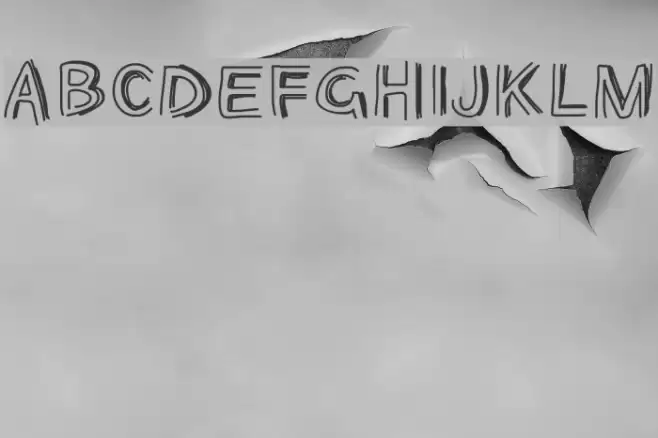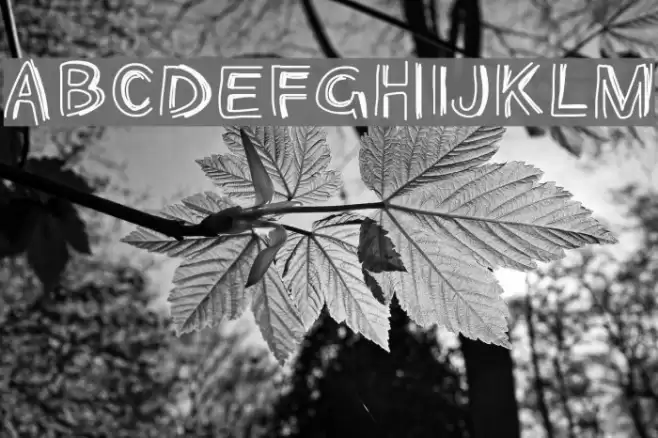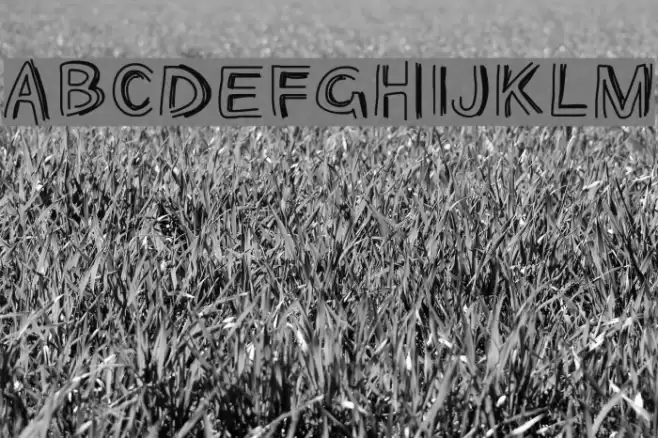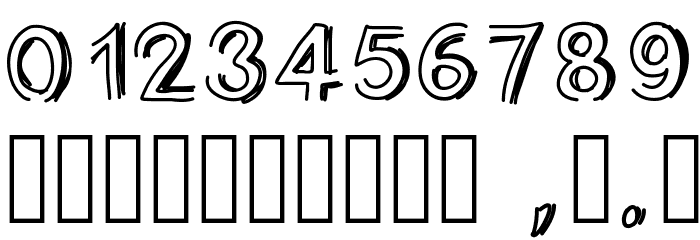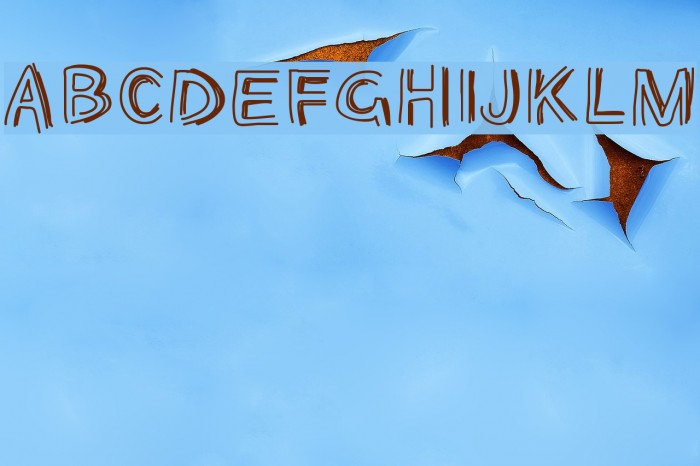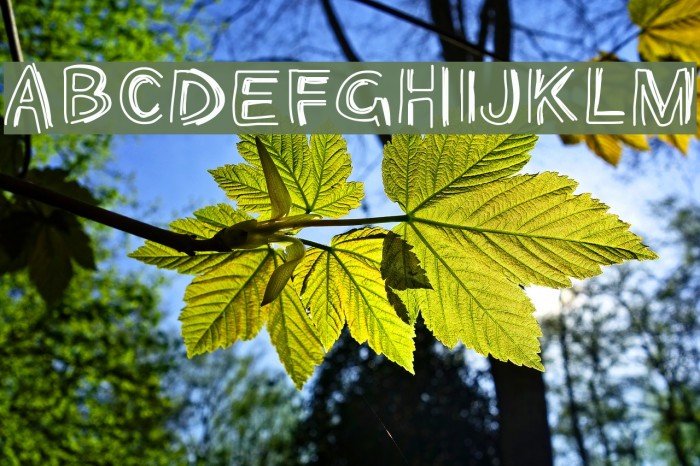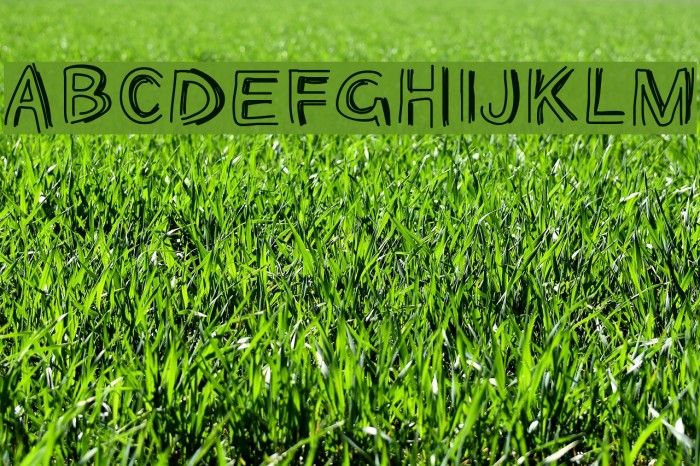
PWOpened Font
PWOpened Description
This font features a playful and dynamic style with a hand-drawn appearance. The uppercase letters are bold and slightly irregular, giving them a whimsical and artistic feel. The strokes vary in thickness, adding to the font's lively character. The numbers follow the same playful design, making them stand out with their unique and creative forms. The special characters are consistent with the overall style, maintaining the hand-drawn aesthetic. This font is perfect for projects that require a fun and engaging look, such as children's books, posters, or creative branding.
A playful, hand-drawn font with bold, irregular strokes and a whimsical style from Uncategorized fonts.
- Proposed Projects: Ideal for children's books, creative posters, playful branding, and artistic designs.
- Overall Style: Playful, Artistic